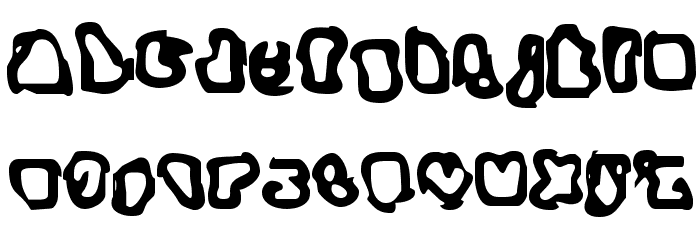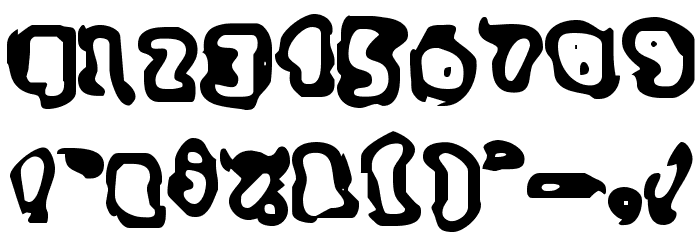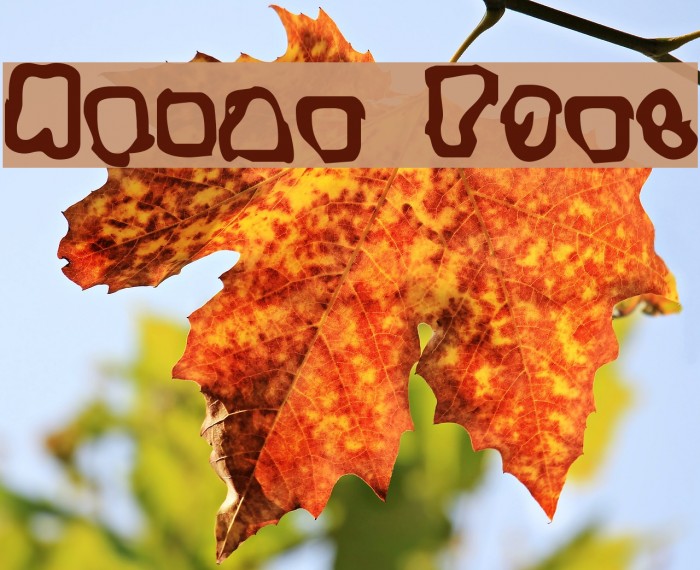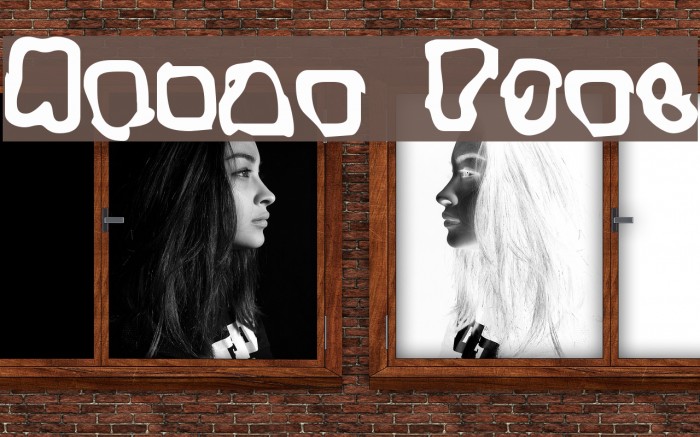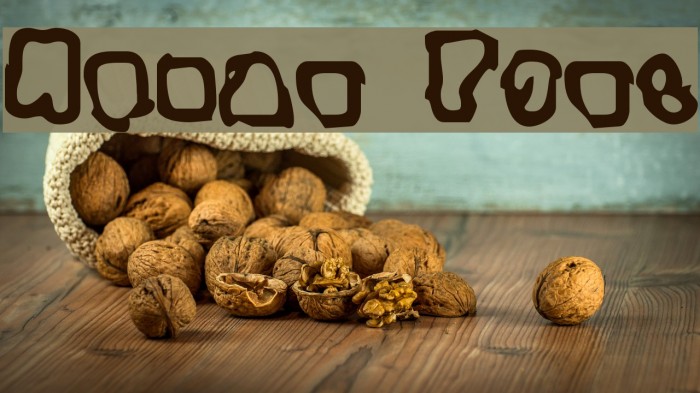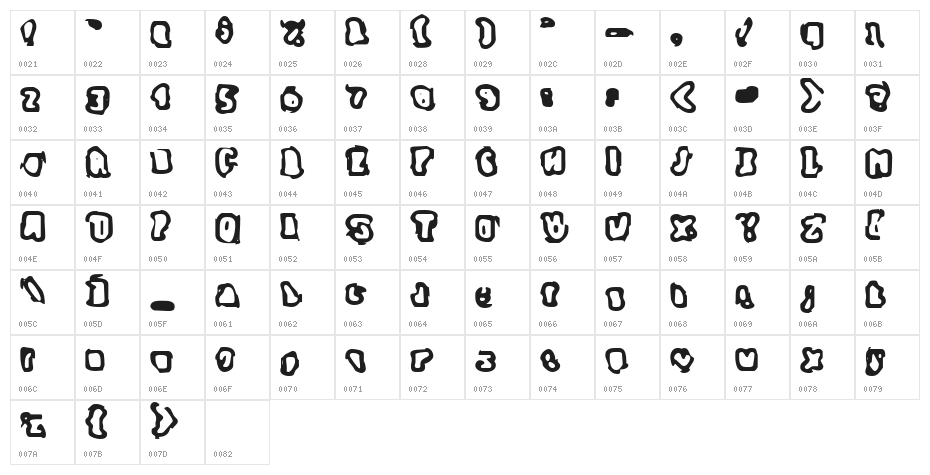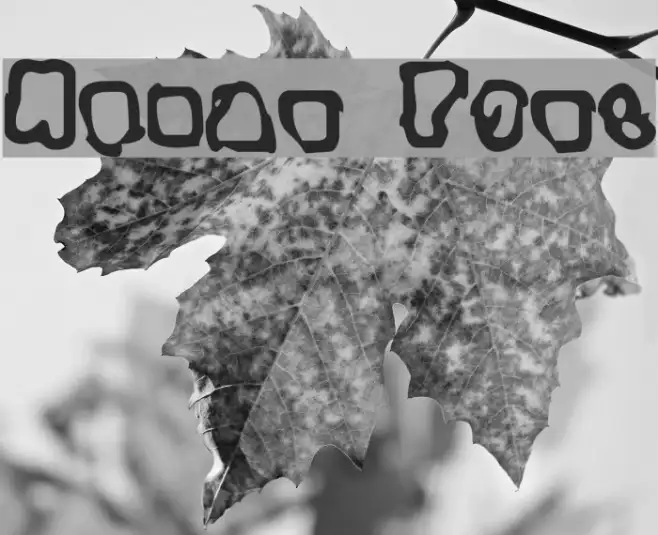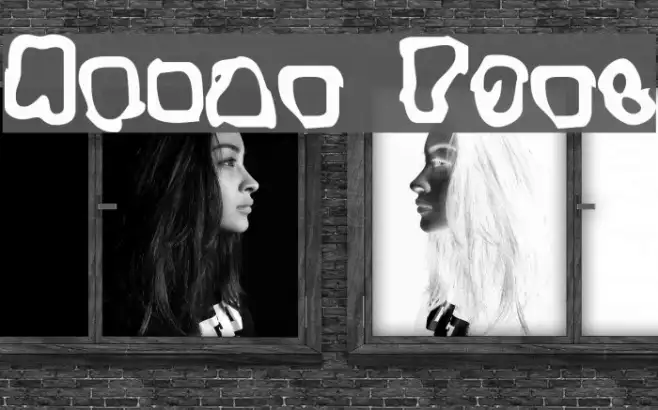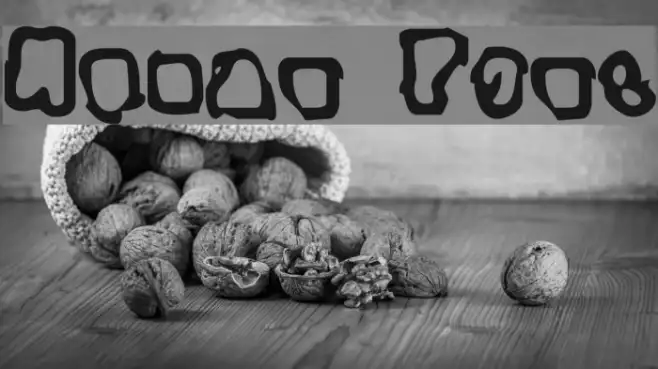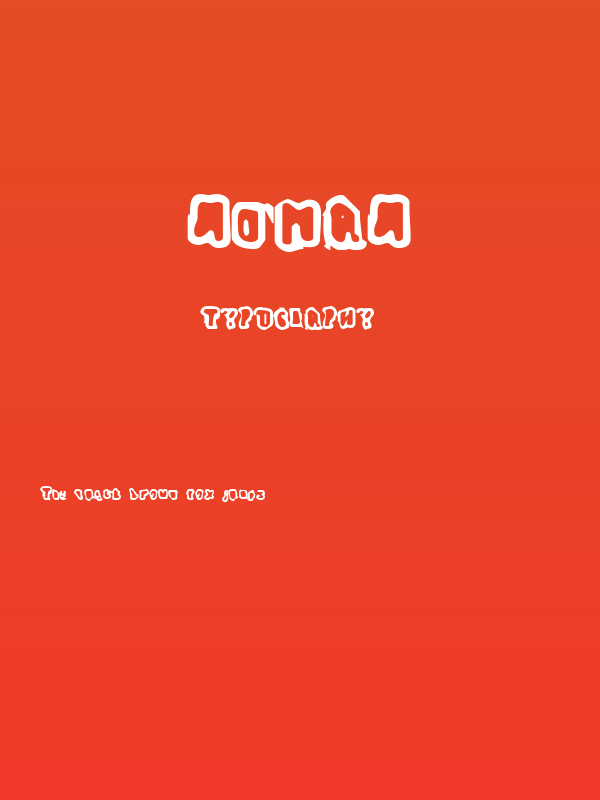
Numan Font
This font features a bold and playful design with thick, rounded strokes that create a bubbly and informal appearance. The characters are heavily stylized, with irregular shapes and varying line thicknesses that give a sense of movement and energy. The font's unique style makes it stand out, with each letter appearing as if it has been hand-drawn with a marker. The overall look is casual and fun, making it suitable for creative and informal projects. The font maintains a consistent weight throughout, ensuring readability despite its unconventional form.
A bold, playful font with thick, rounded strokes and a hand-drawn appearance.
- Proposed Projects: Ideal for children's books, comic strips, playful branding, and creative posters.
- Overall Style: Playful, Creative
- Use Case: Headlines, Posters, Branding